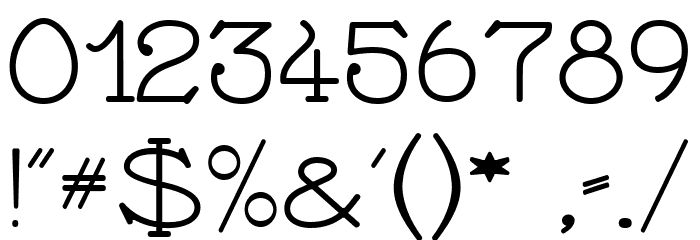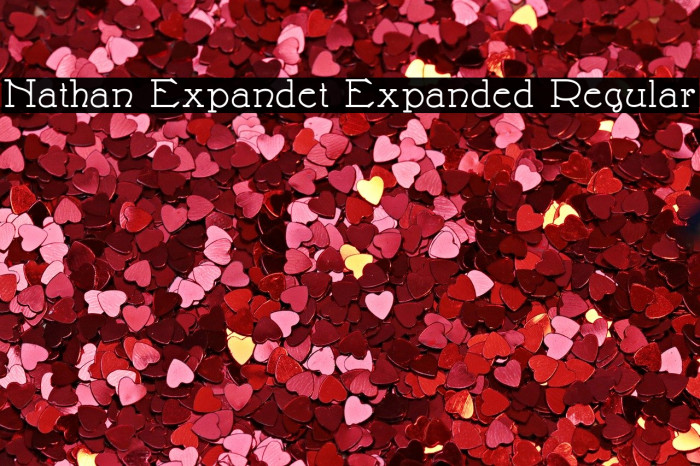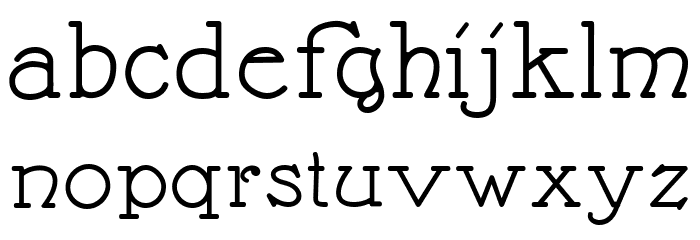
Nathan Expandet Expanded Regular Font
Nathan Expandet Expanded Regular Description
This font features a unique blend of classic and modern elements, characterized by its expanded letterforms and distinct serifs. The uppercase letters are bold and prominent, with a slight curvature that adds a touch of elegance. The lowercase letters maintain a consistent style, with rounded edges and a playful yet sophisticated appearance. The numerals are clear and legible, making them suitable for various applications. Special characters are well-defined, enhancing the font's versatility. Overall, this typeface exudes a sense of creativity and professionalism, making it ideal for projects that require a distinctive and memorable look.
An expanded serif font with a blend of classic and modern elements, featuring elegant curves and distinct serifs from Uncategorized fonts.
- Proposed Projects: Ideal for branding, editorial design, advertising, and any project that requires a unique and memorable typeface.
- Use Case: Headlines, Logos, Editorial design